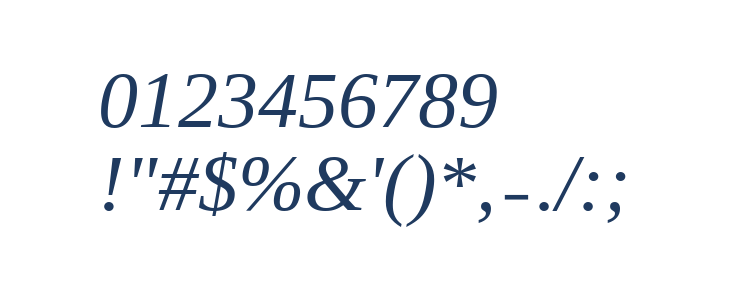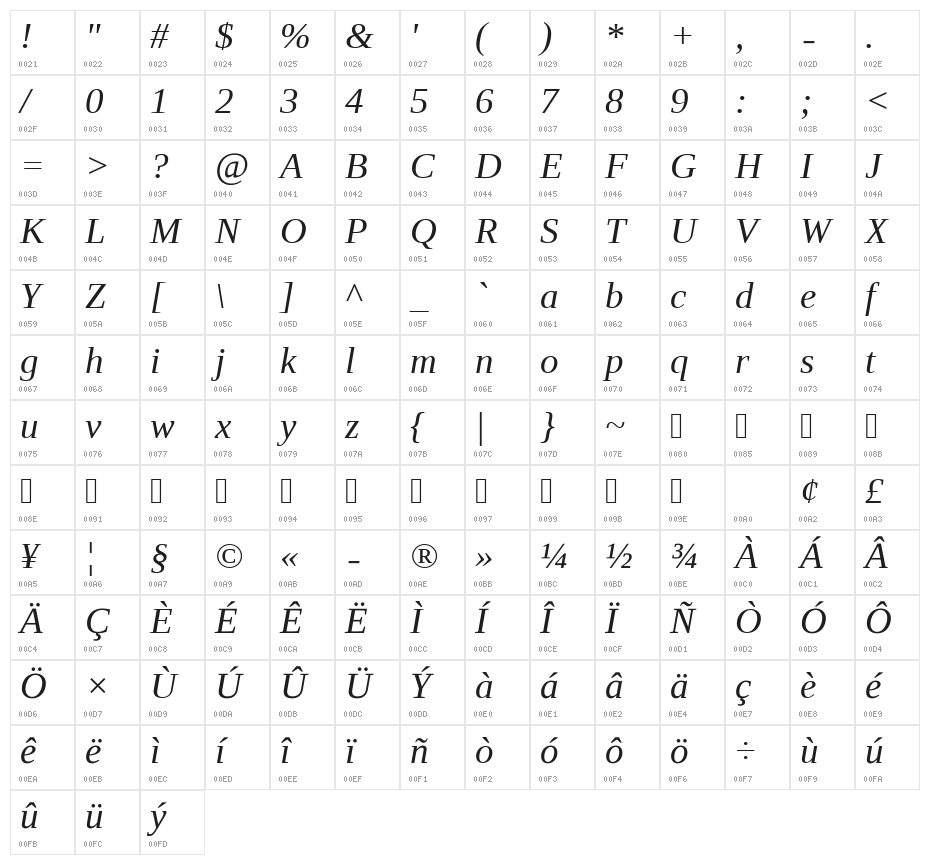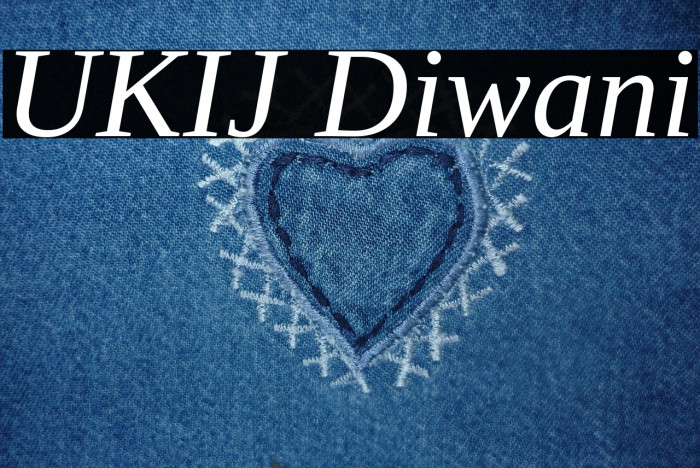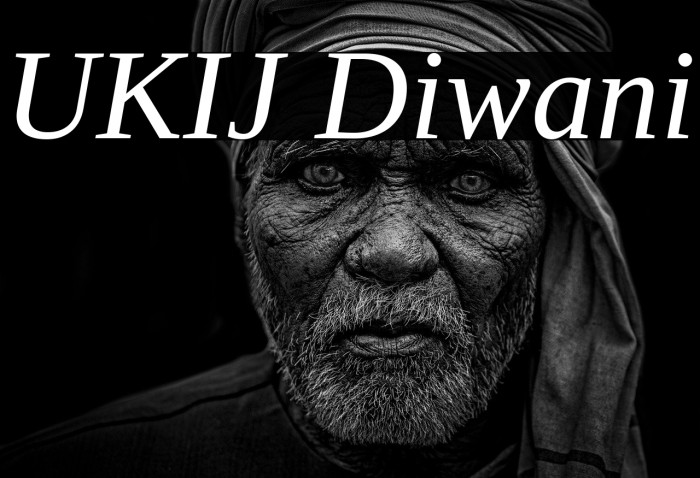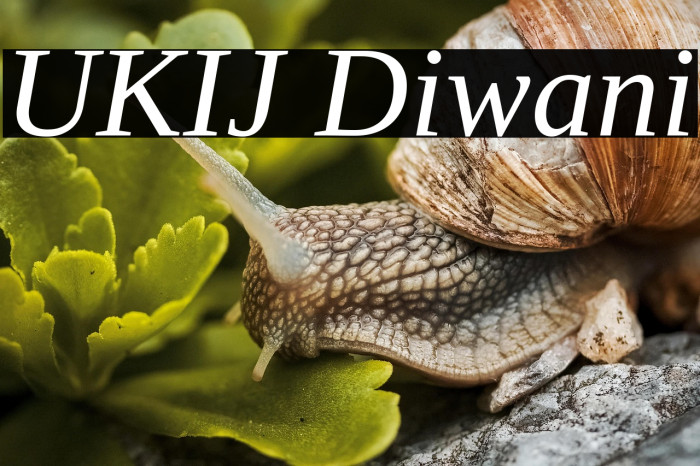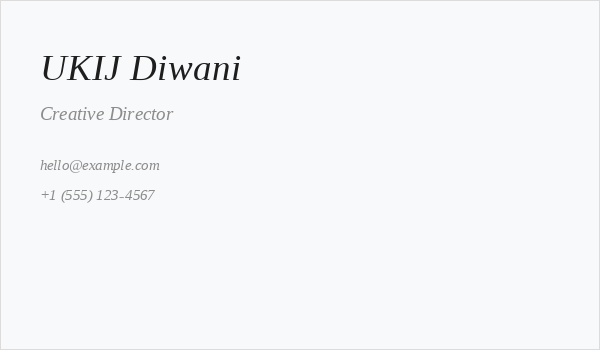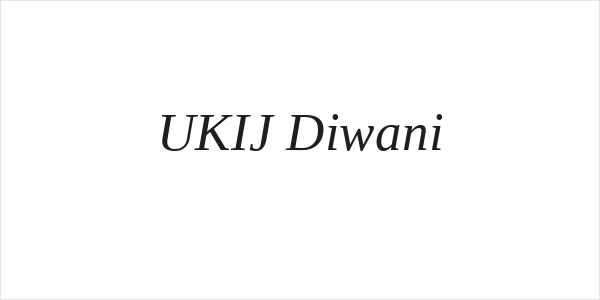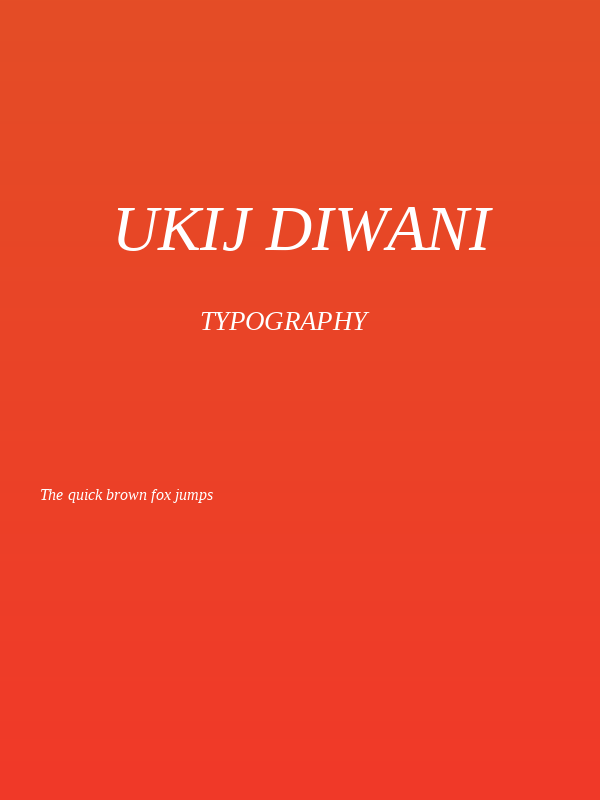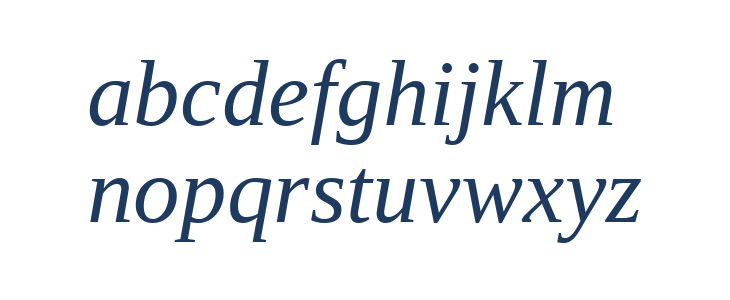
UKIJ Diwani Font
UKIJ Diwani Description
This font features a classic serif style with a slight italic slant, giving it an elegant and sophisticated appearance. The uppercase letters are well-proportioned, with a traditional serif design that enhances readability. The lowercase letters maintain a consistent style, complementing the uppercase with smooth curves and a refined look. The numerals are clear and distinct, matching the overall aesthetic of the font. Special characters are included, maintaining the same elegant style, making this font versatile for various uses.